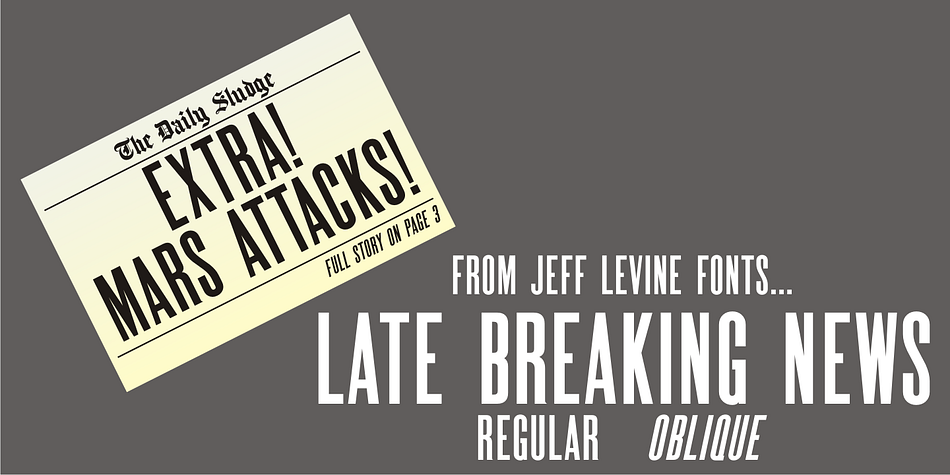
Late Breaking News JNL is a display sans font family. This typeface has two styles and was published by Jeff Levine Fonts.
Re-drawn from a screen capture of a vintage newspaper front page, Late Breaking News JNL is a traditional sans serif that’s perfect for headlines, titling and other forms of announcements.